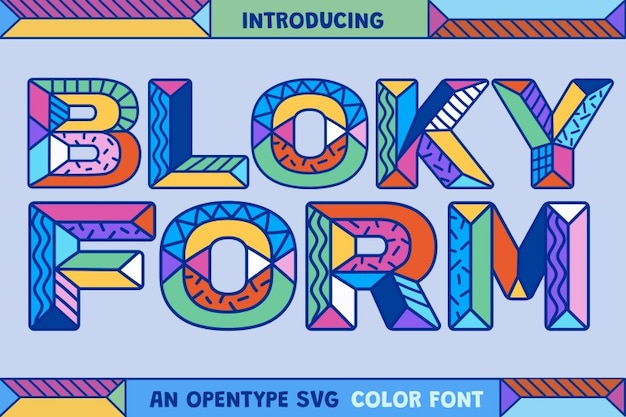
Bloky Form Font
Bloky Form is a fun-loving typeface where each bold letter pops with colorful patterns and a chunky, blocky feel. It’s like a patchwork of playful textures packed into sturdy shapes, perfect for vibrant designs that want to mix structure with a burst of creativity.